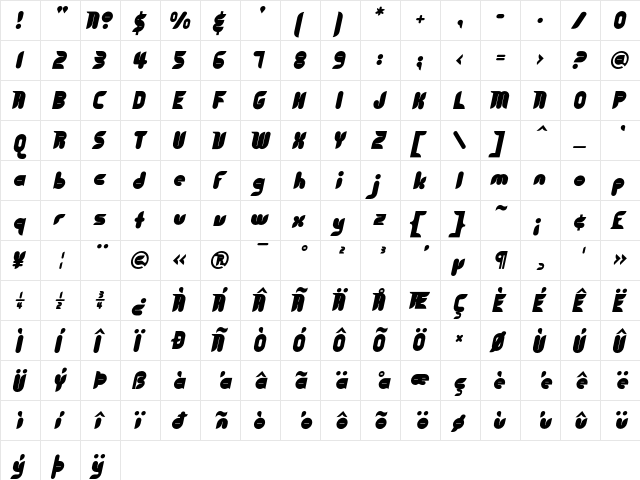
Cyberotica ExtraBold Font Preview
Cyberotica ExtraBold
Design Context for Cyberotica Typeface
Cyberotica has a distinctly futuristic character, with geometric precision and clean angles that feel at home in technology, gaming, and sci-fi contexts. The heavy weight commands attention and anchors typographic hierarchies.